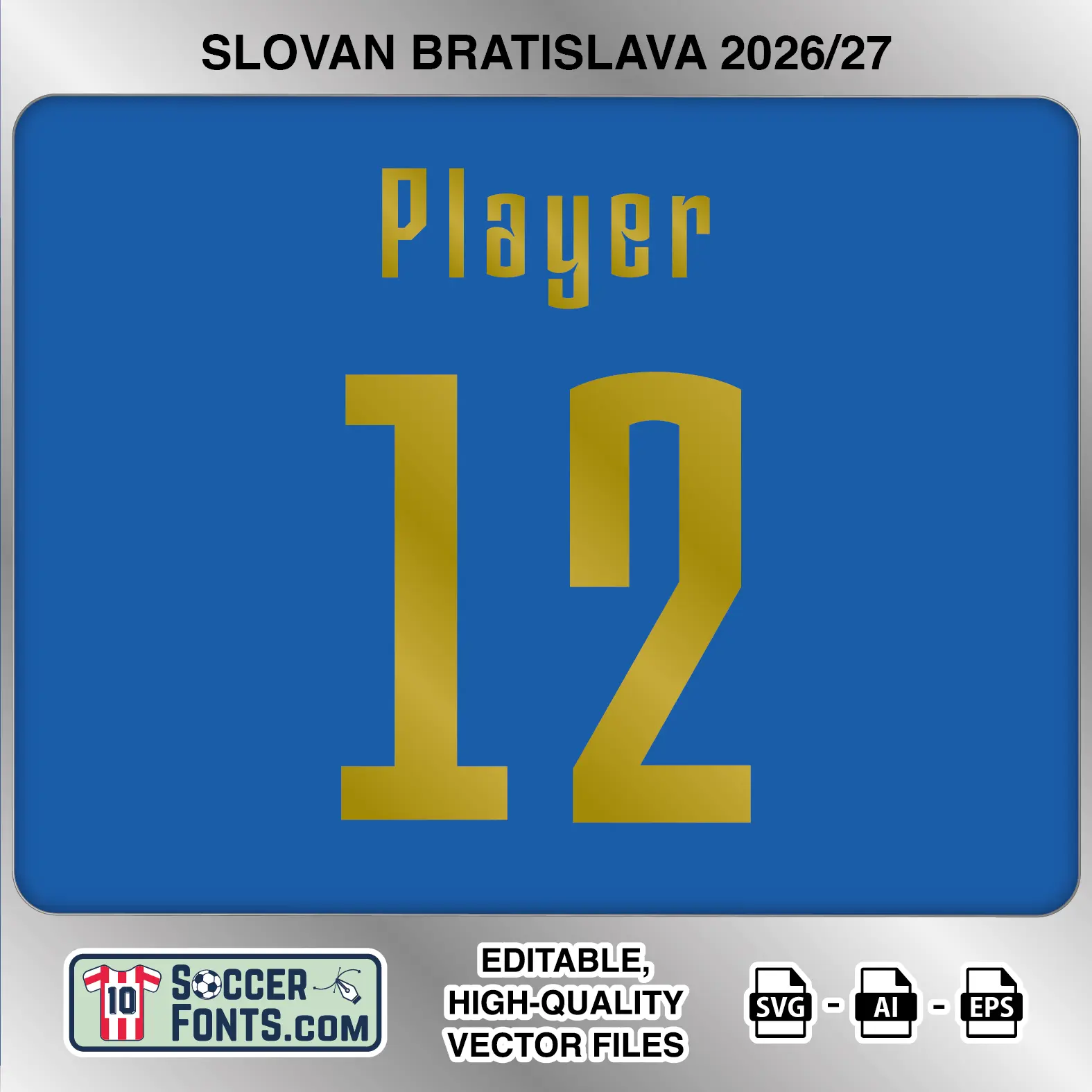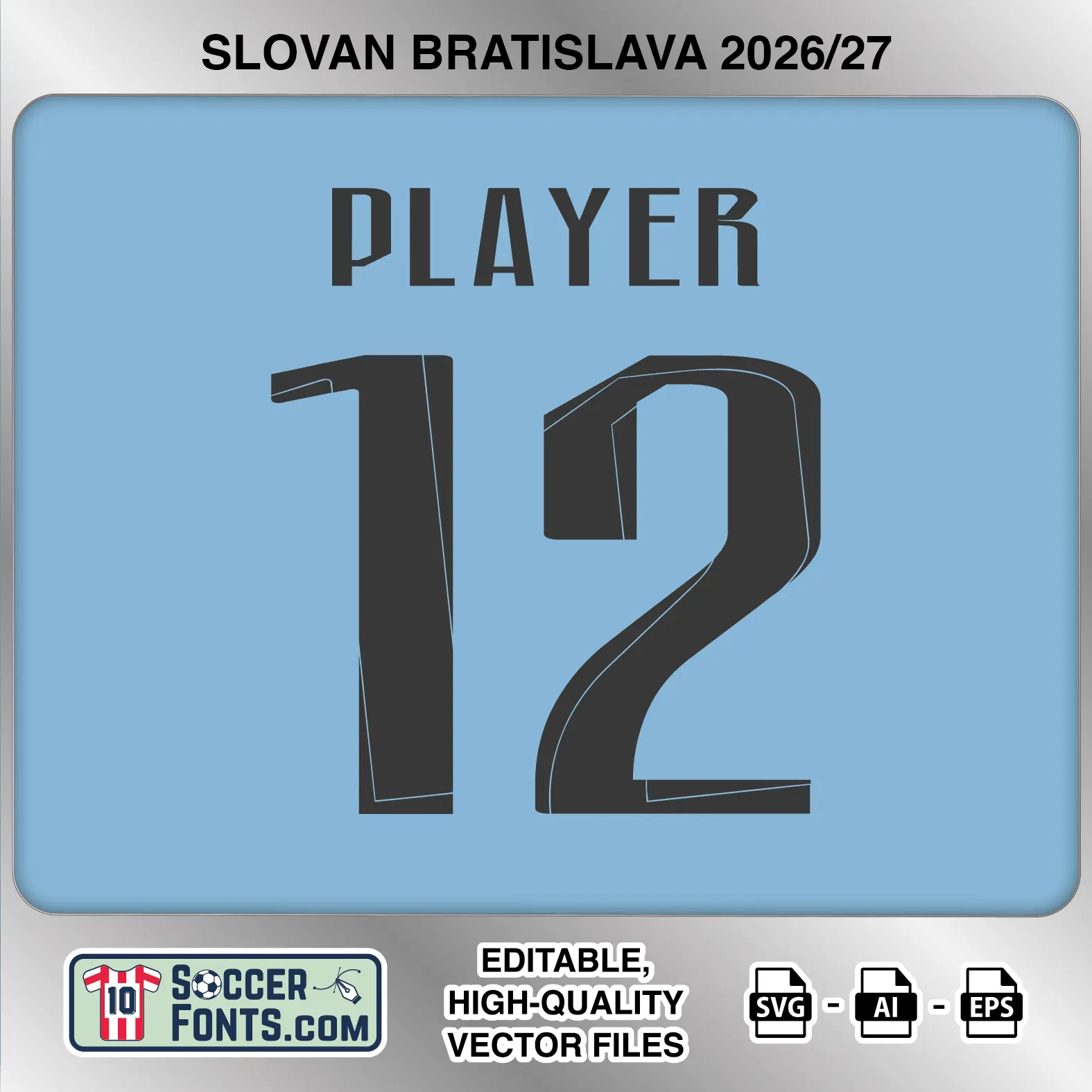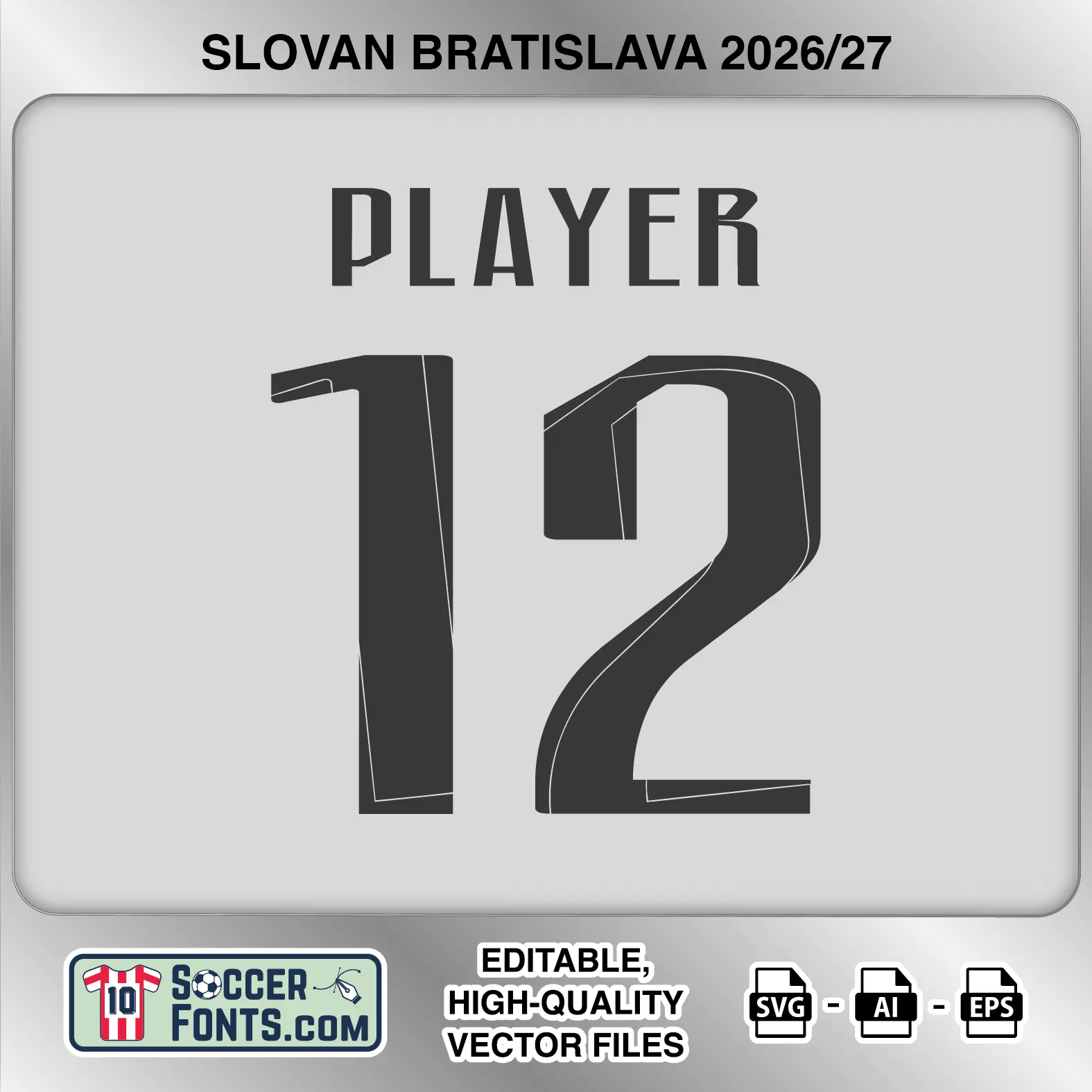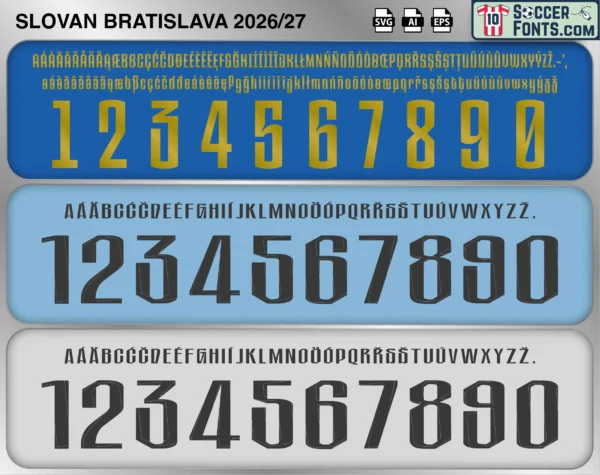
About Slovan Bratislava 2026-27 Font
Download Slovan Bratislava 2026-27 font, an editable soccer jersey lettering design in vector format inspired by the Slovan Bratislava home, away and third kit styles used during the 2026-27 football season. This football font artwork is prepared for football shirt recreations, custom jersey projects, football kit mockups and sports graphic design workflows.
Visual Identity of the Font Design :
The Slovan Bratislava 2026-27 collection includes two closely related geometric lettering treatments together with a noticeably different third style. The home version uses metallic gold lettering and numbers against a strong blue background. Its character set includes both uppercase and lowercase letters with an extensive range of accented characters. The numbers are tall and narrow, combining straight vertical strokes with angular cuts and unconventional geometric forms, particularly visible in the 3, 4, 5, 6, 8, 9 and 0.
The away version uses dark charcoal lettering and numbers against a light blue background. Its numerals retain the tall proportions but introduce a more dimensional construction, with thin contrasting lines and offset sections following selected edges. These details create a layered appearance around the numbers without using a conventional full outline.
The third version applies the same dark charcoal treatment against a light grey background, again using the angular, layered number construction. Both the away and third versions feature a condensed uppercase alphabet with distinctive cut and pointed details across several characters.
Context of 2026-27 Season for Slovan Bratislava :
For football shirt collectors and kit design projects, the Slovan Bratislava 2026-27 Font brings the home, away and third lettering treatments together in one package. With metallic gold home lettering and two darker geometric treatments for the away and third shirts, the Slovan Bratislava 2026-27 Font provides a complete reference for recreating the club’s 2026-27 jersey lettering.